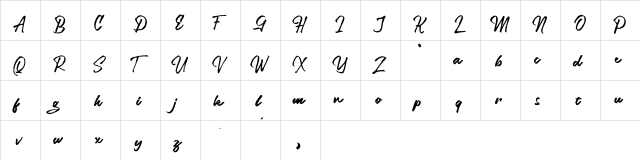
Legiante Regular
| Foundry | Nur Solikh / Astageni Type |
| Designer | Nur Solikh |
Design Context for Legiante Typeface
Legiante is a composed and adaptable typeface that performs quietly and consistently across a wide range of design contexts.